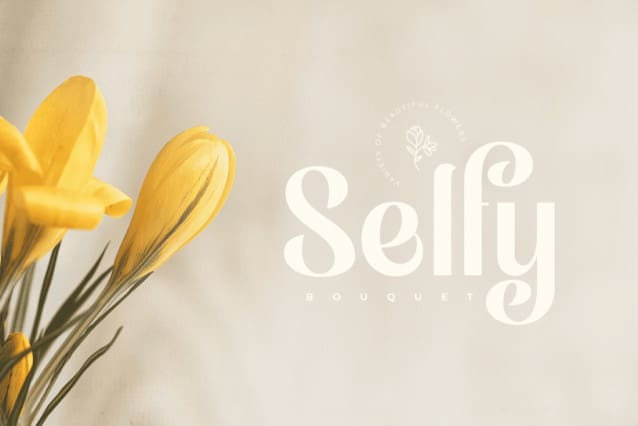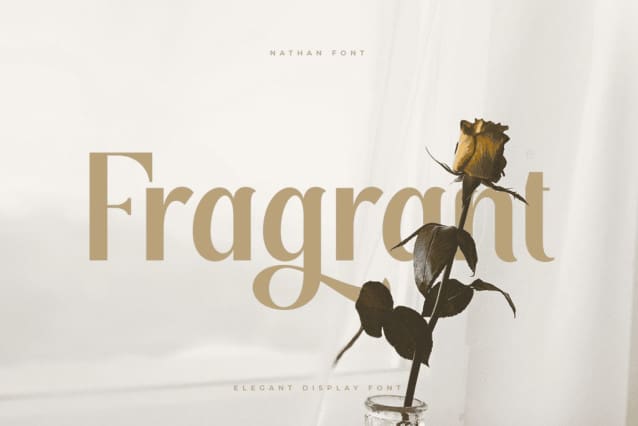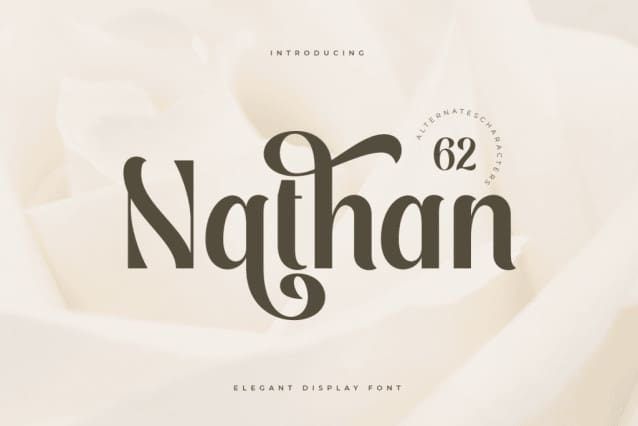
Nathan Display Font
Nathan Display Font, An Elegant Display Serif font that we created especially for elegant branding needs, with a unique shape, will be ready to add value to your brand. It’s so nice to call on a designer or product owner who needs solutions to make their design more sleek and modern. And especially for Nathan font, we have prepared all the characters to help you create unlimited variations for your creative needs.